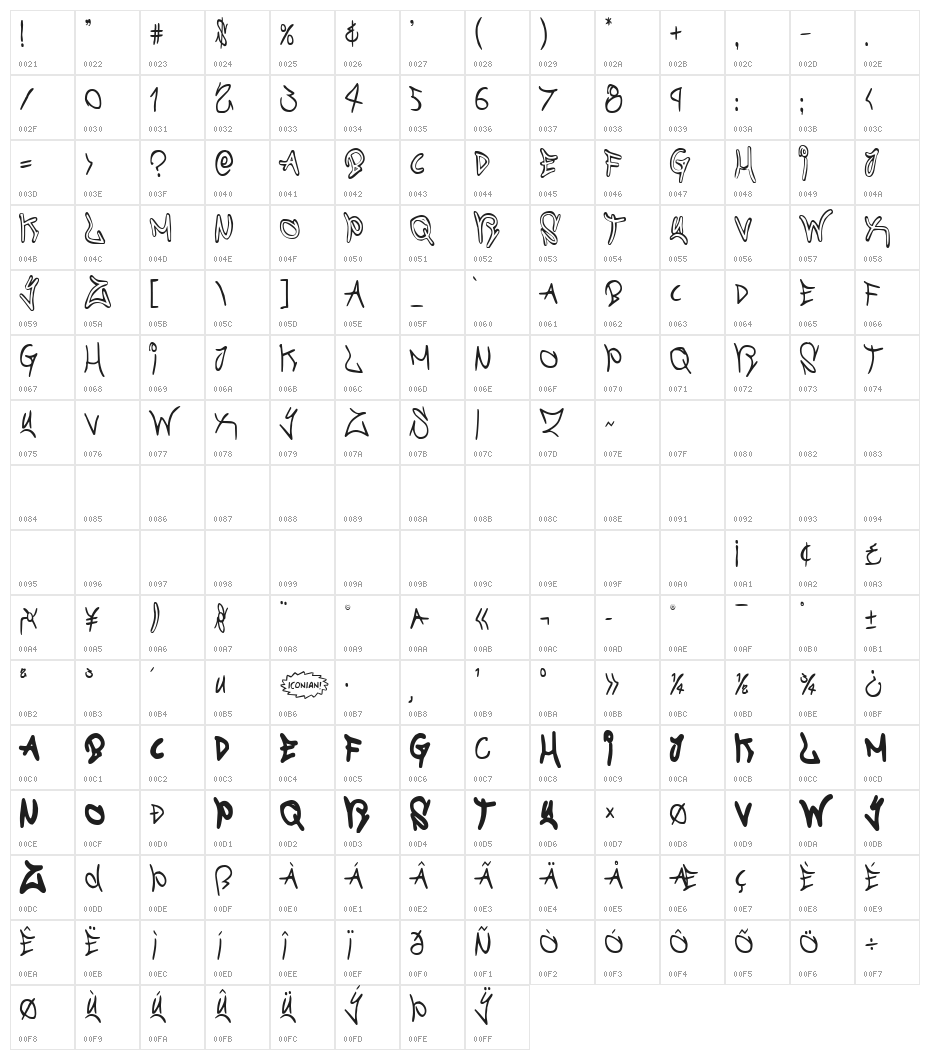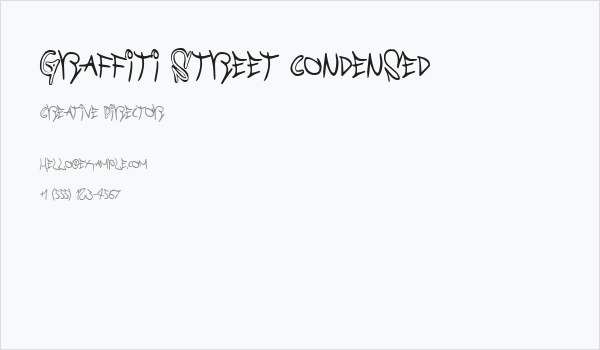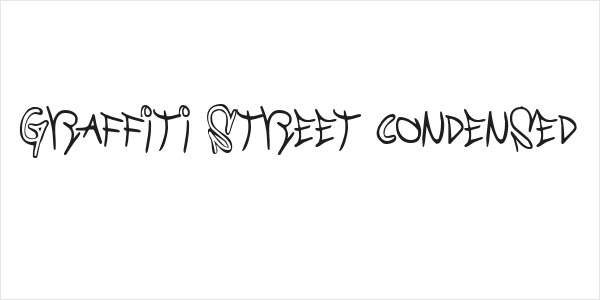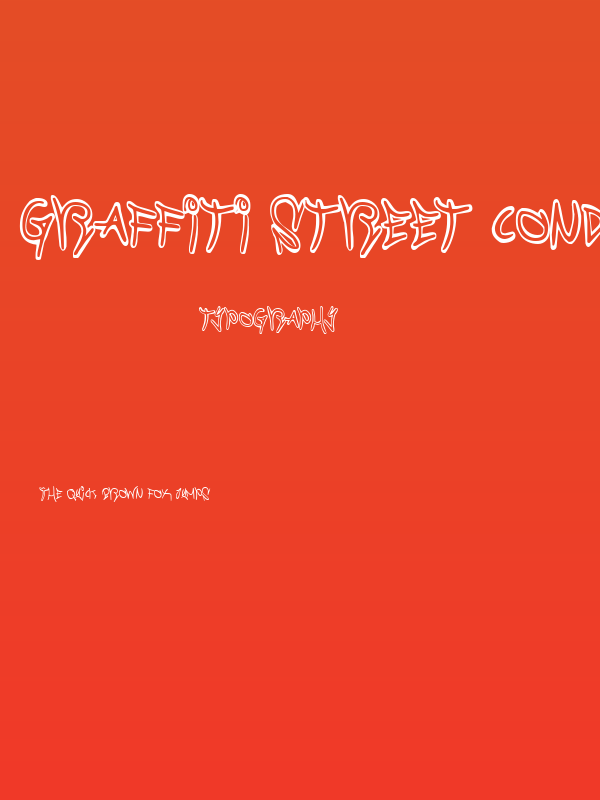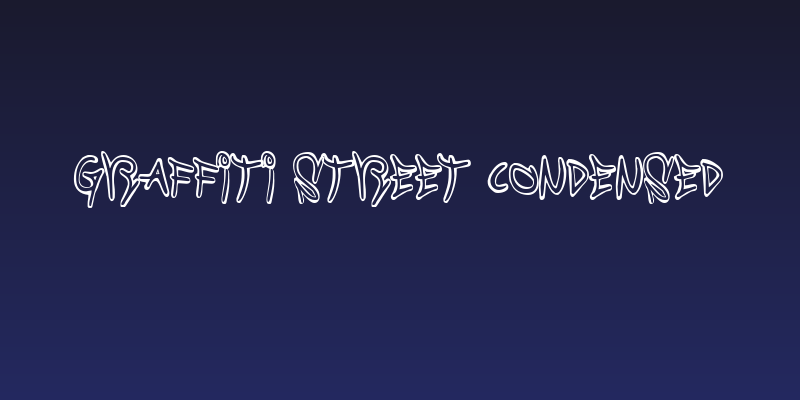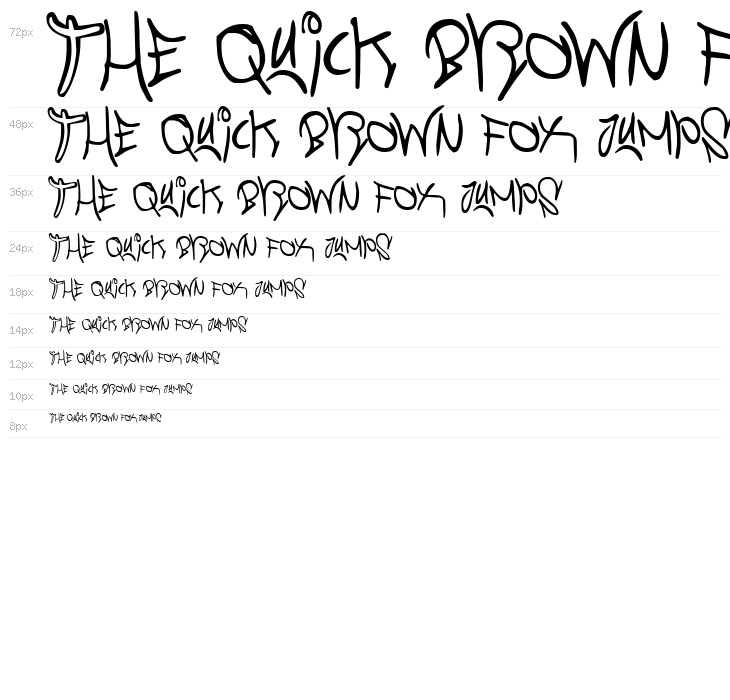
Graffiti Street Condensed Font
Graffiti Street Condensed Description
This font embodies the raw, dynamic energy of street art, capturing the essence of graffiti with its bold, angular lines and condensed form. Each character is uniquely stylized, featuring sharp edges and a sense of movement that mimics the flow of spray paint on a wall. The uppercase and lowercase letters maintain a consistent style, with exaggerated curves and pointed tips that create a sense of urgency and rebellion. Numbers and special characters are equally expressive, adding to the font's overall edgy and urban aesthetic. The font's condensed nature allows for efficient use of space, making it ideal for impactful designs.
| Overall Style | Urban, Edgy, Dynamic |
| Proposed Projects | Perfect for urban-themed designs, streetwear branding, music album covers, and event posters. |